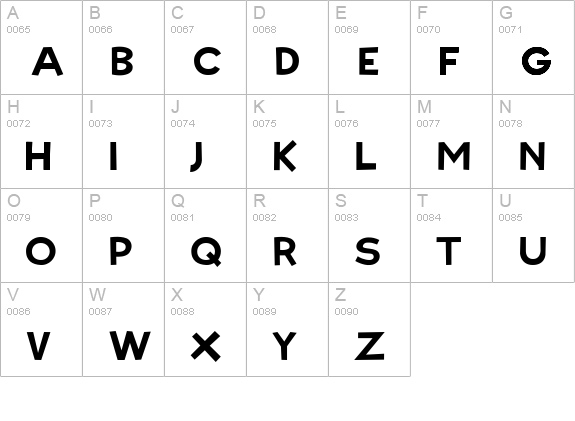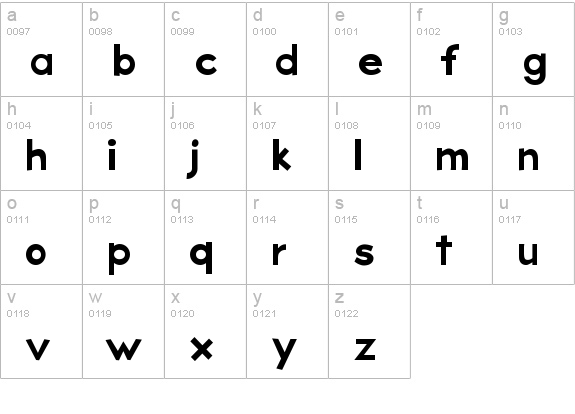
Big Sky Font Details
Introducing Big Sky font, a versatile and modern typeface that will elevate your designs to new heights. With its clean lines and bold presence, Big Sky is perfect for branding projects, logos, headlines, and more. This font exudes a sense of strength and sophistication, making it a standout choice for any design project. The best part? Big Sky font is completely free to download at FontsMarket.com. So you can bring a touch of elegance and professionalism to your designs without breaking the bank. Don't miss out on this fantastic opportunity to enhance your creative projects with the stunning Big Sky font. Download it today and let your designs soar to new heights!